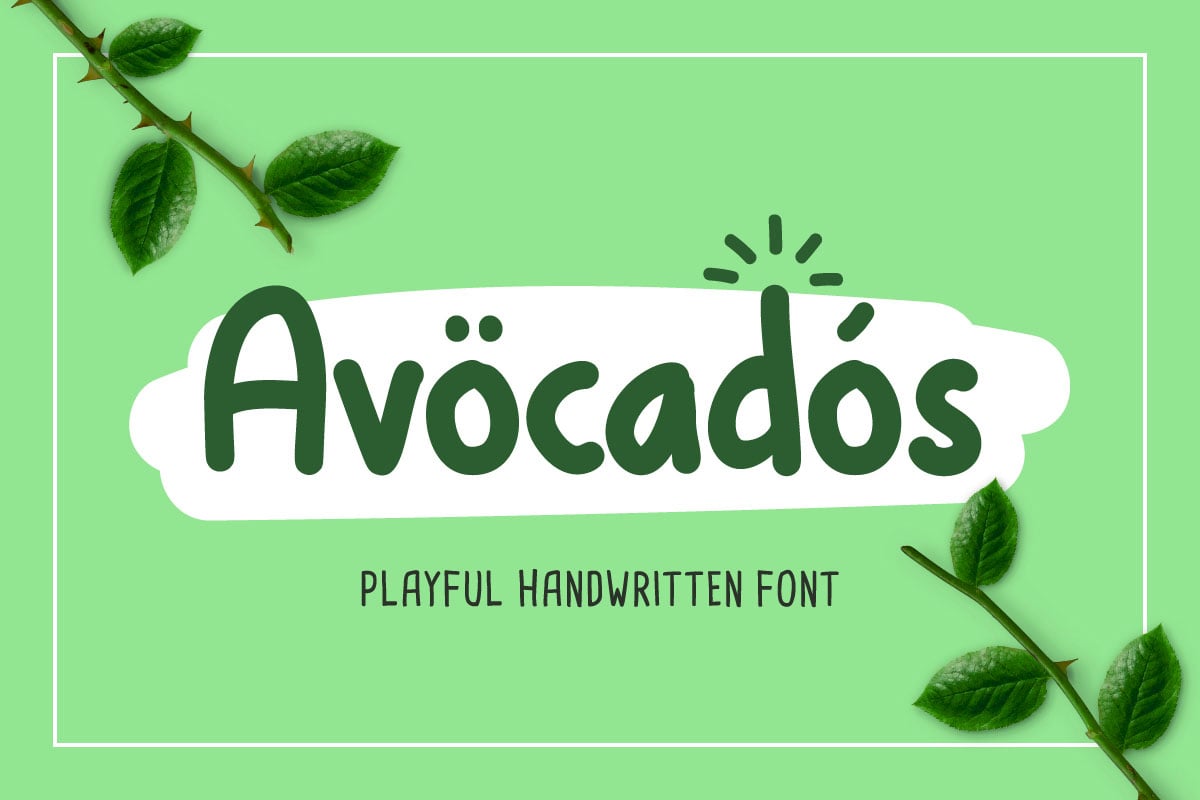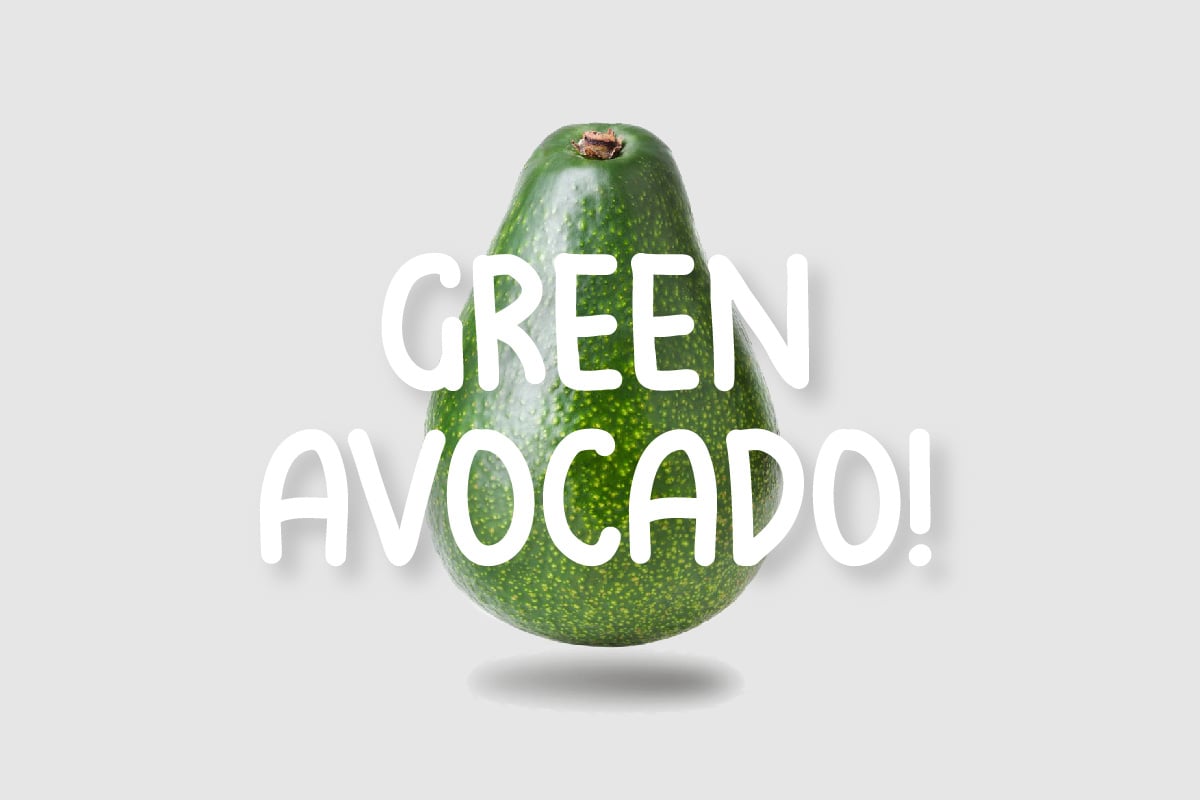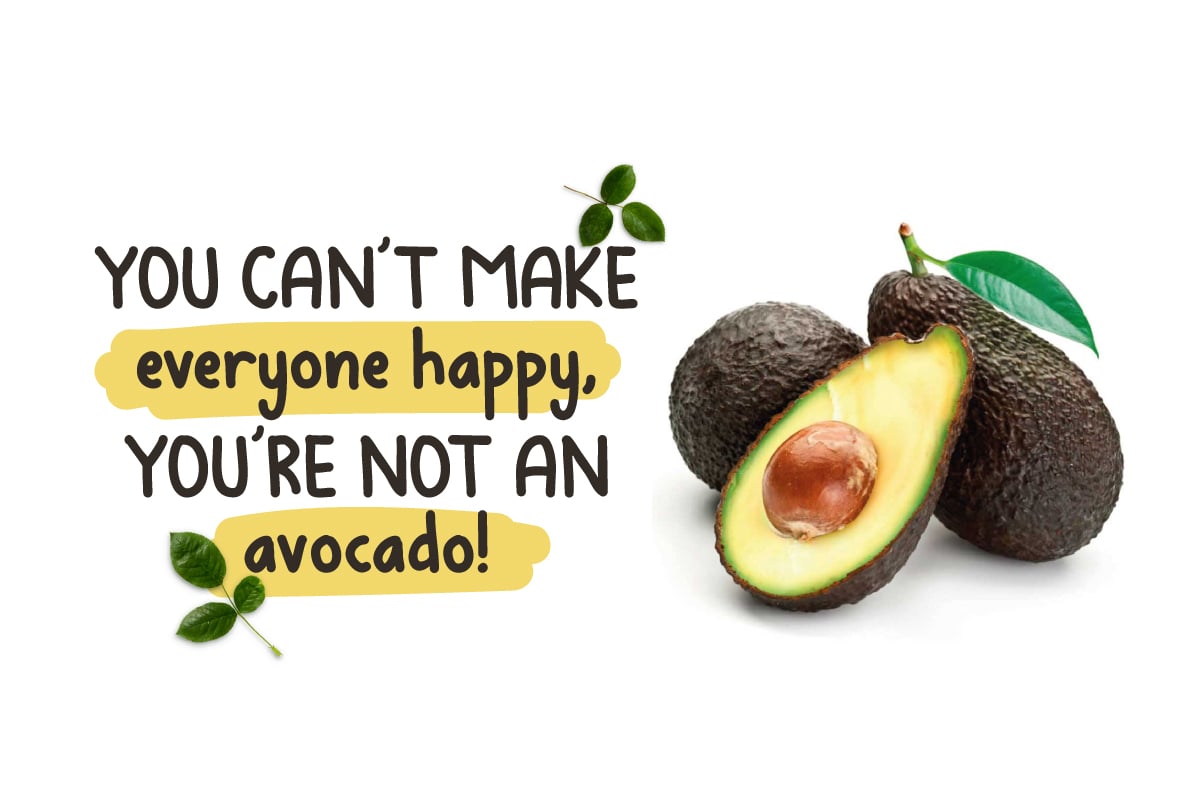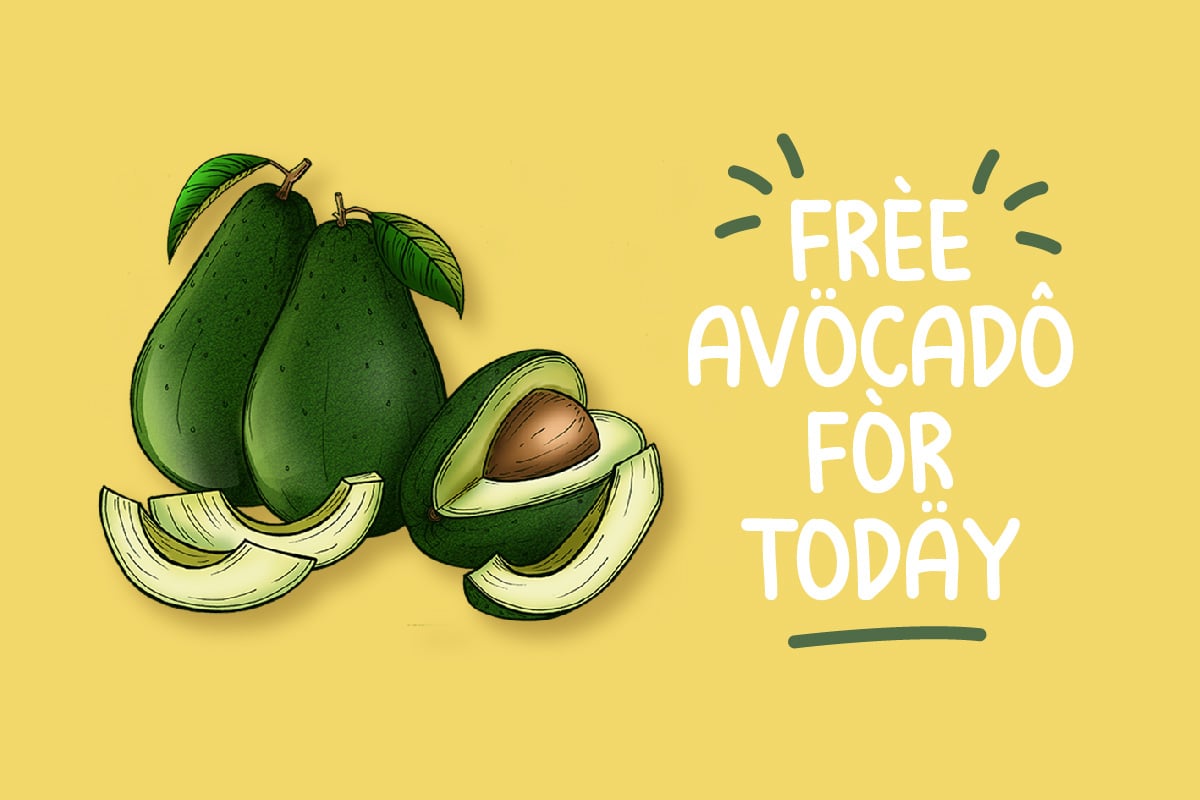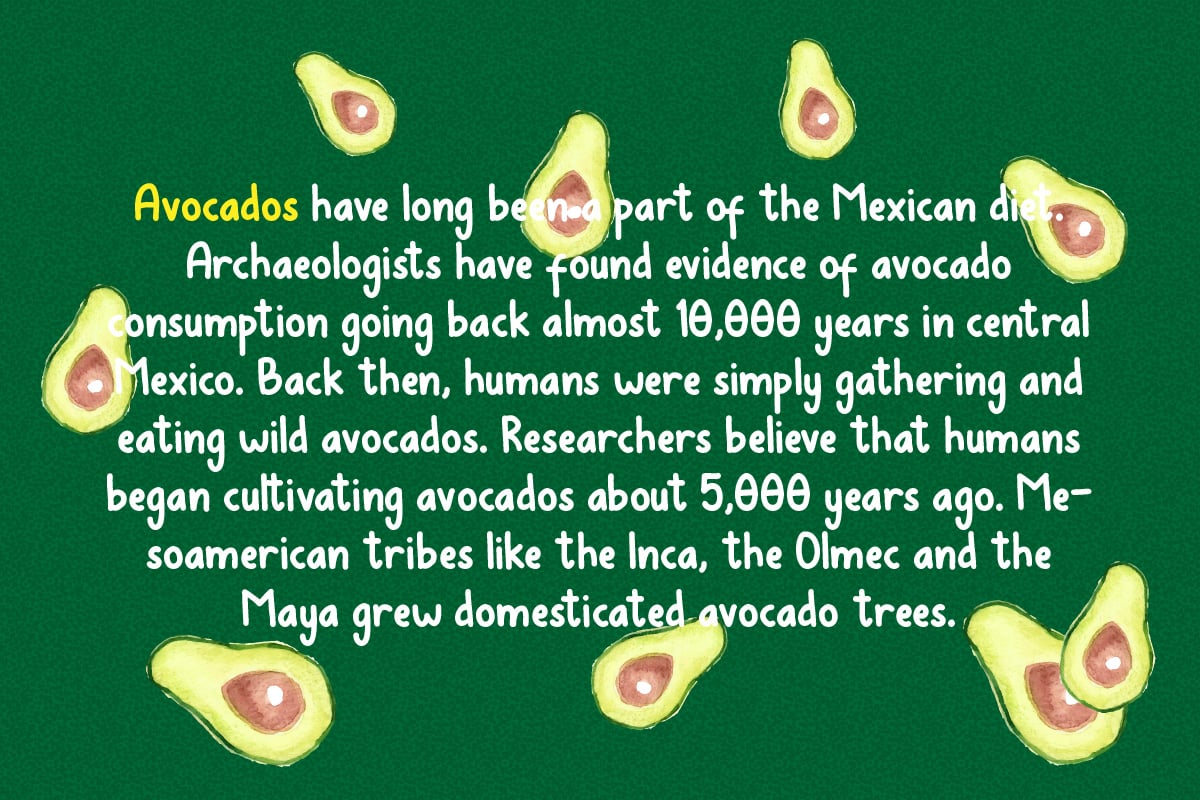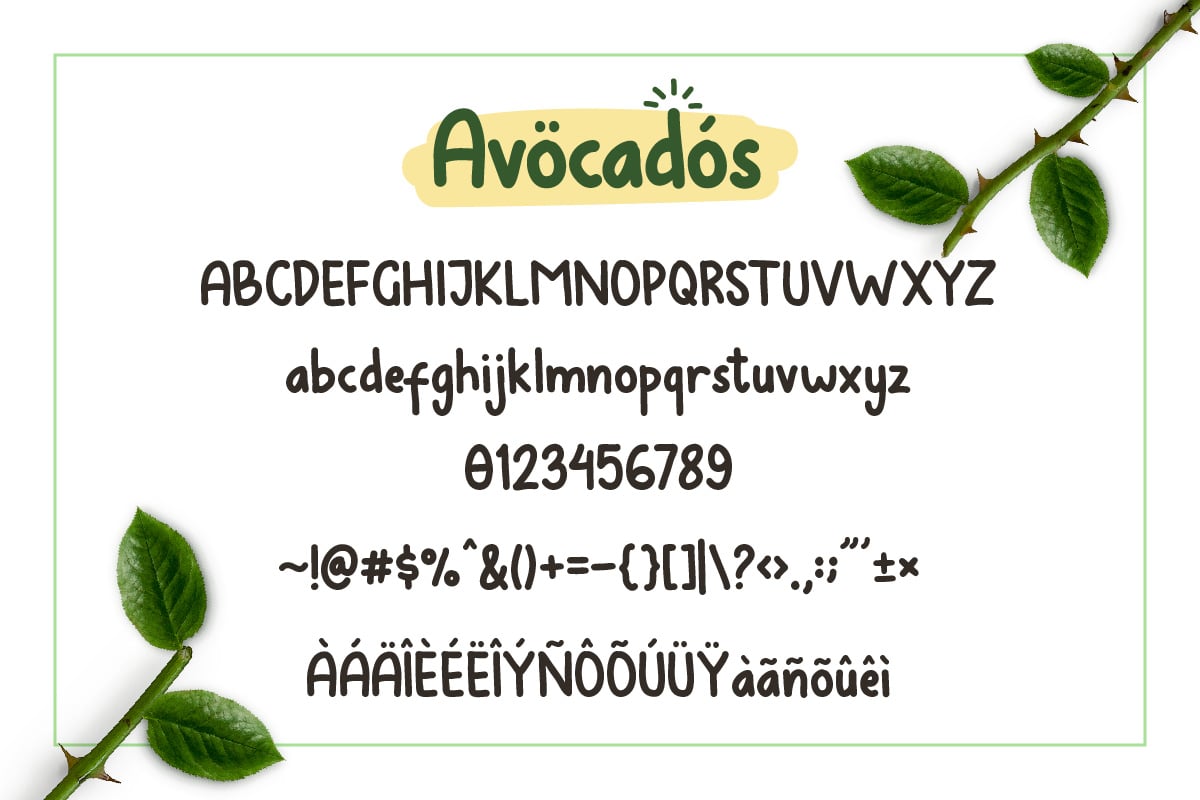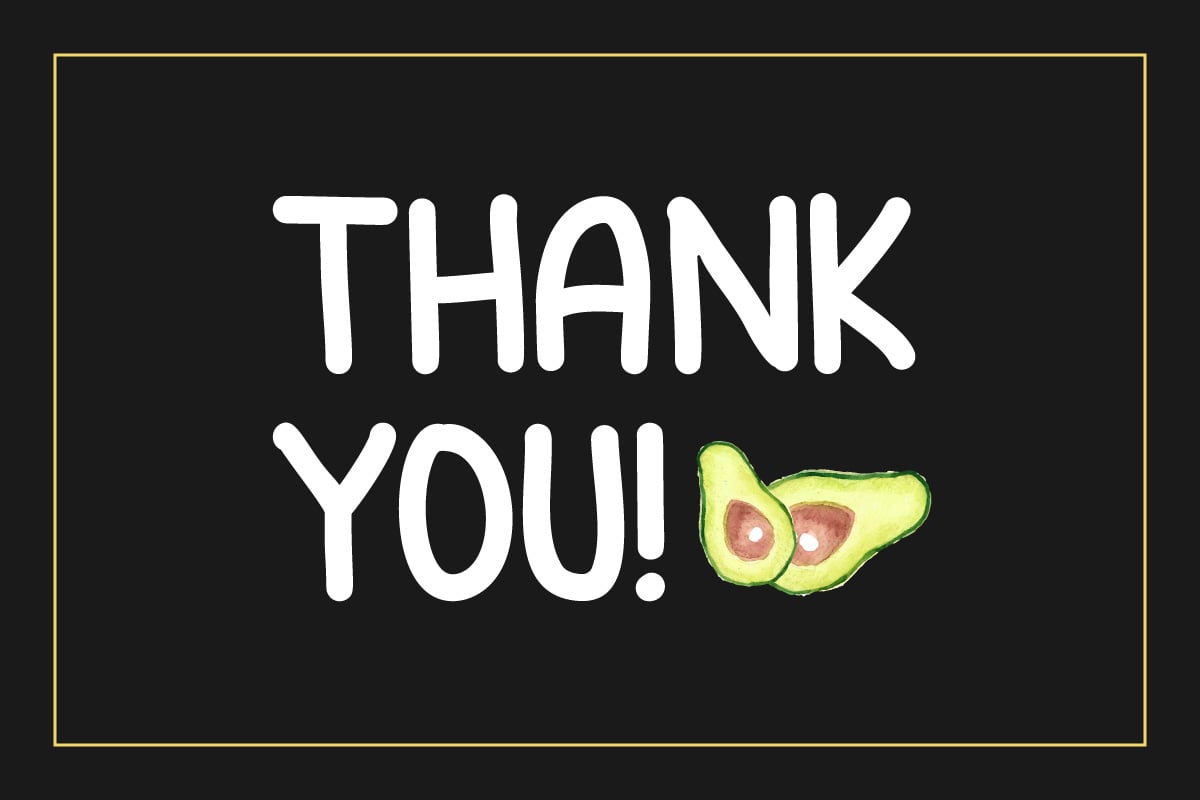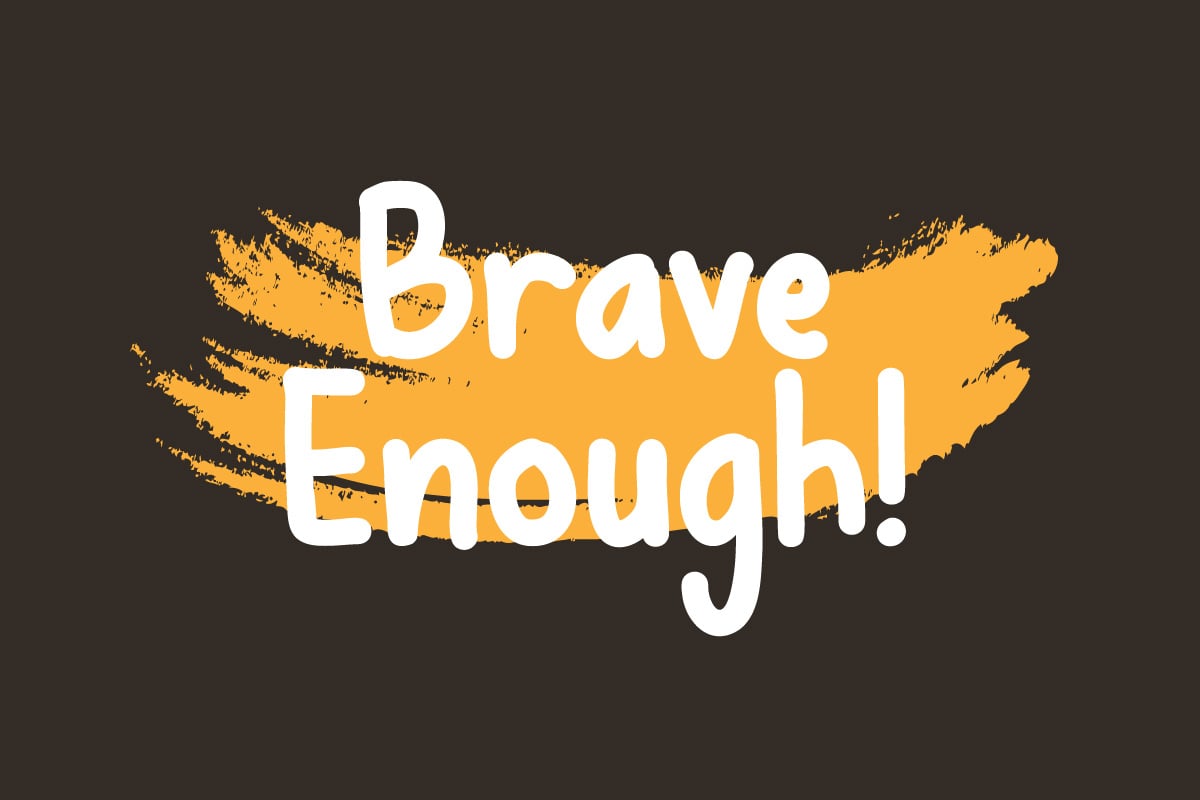
Avocados – Cute Font
Avocados is a handwritten sans serif font. This font is very simple and fun to use! Avocados is perfect for create a quotes, logo, badge, insignia, packaging, headline, poster, t-shirt/apparel, greeting card and more. This font awesome for kids and school and support multilingual language.
- Multi-Language Support